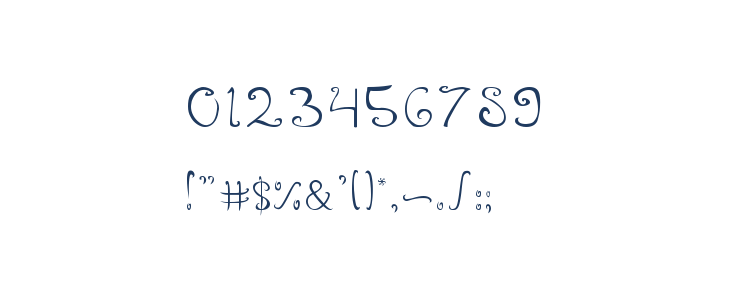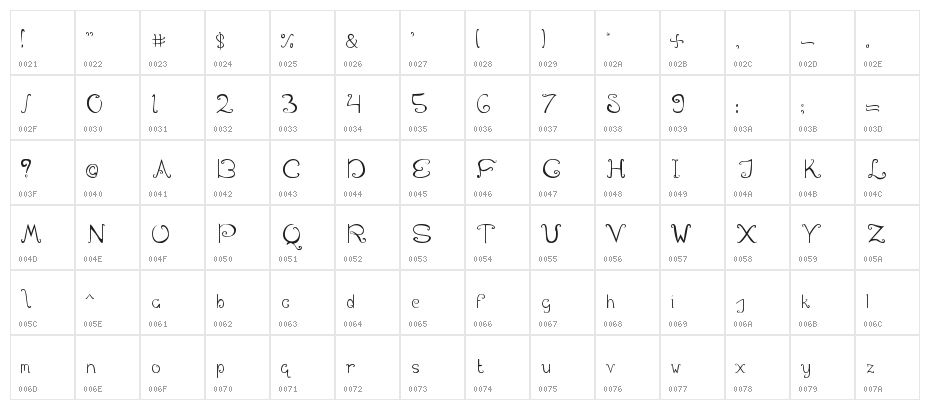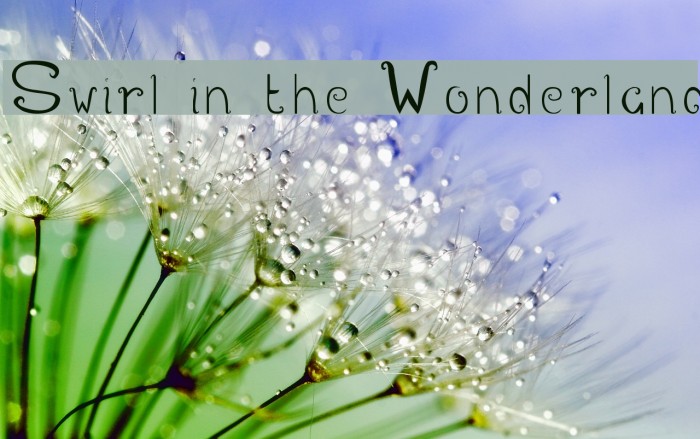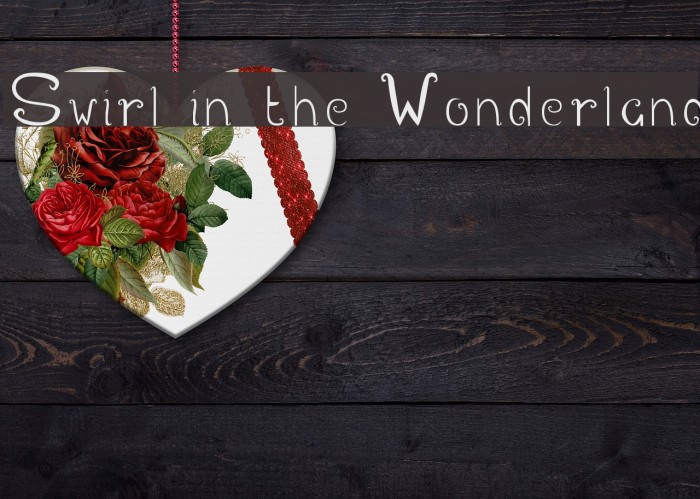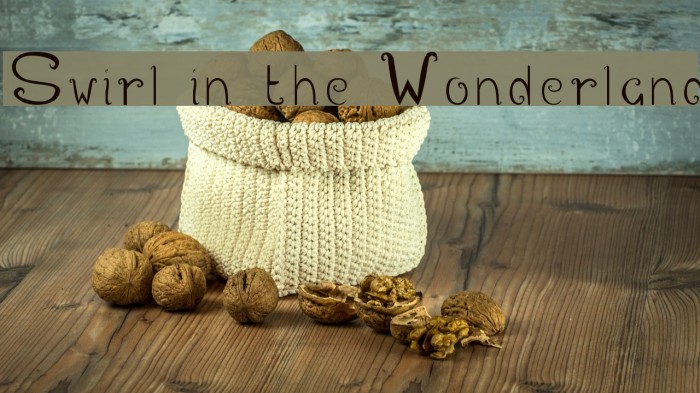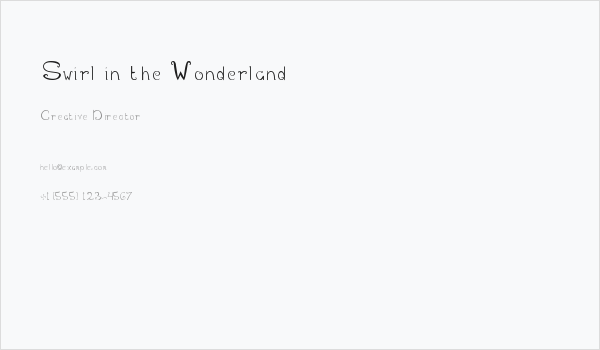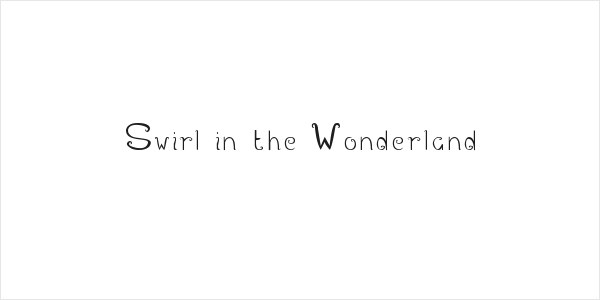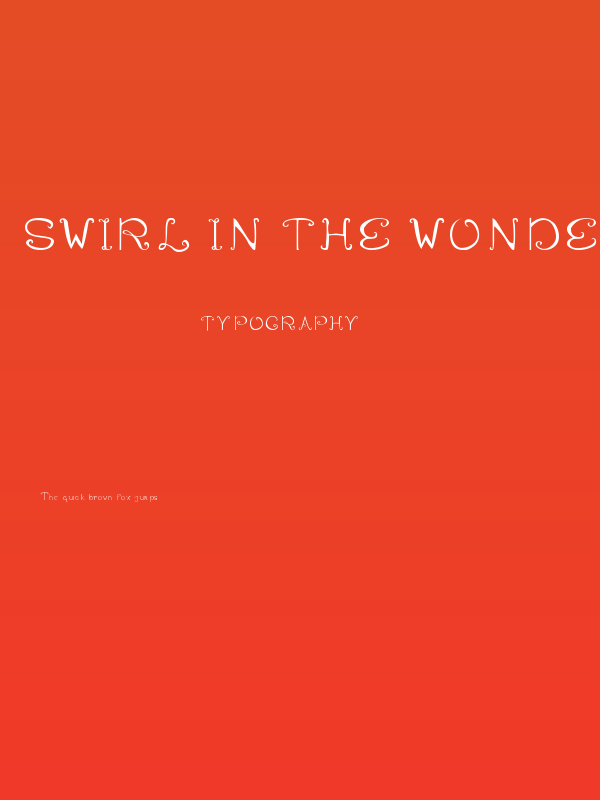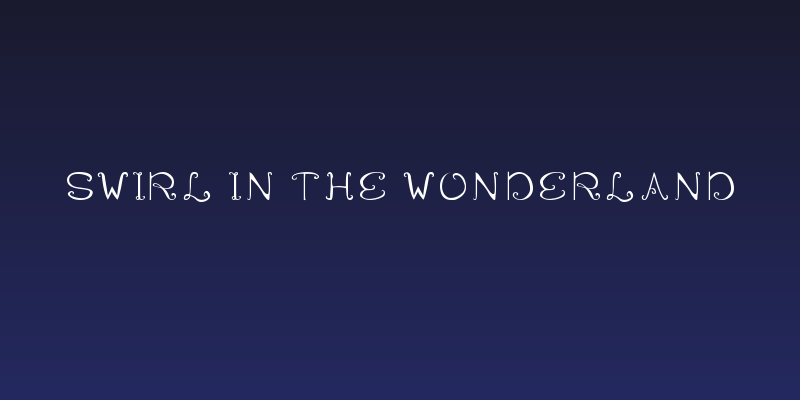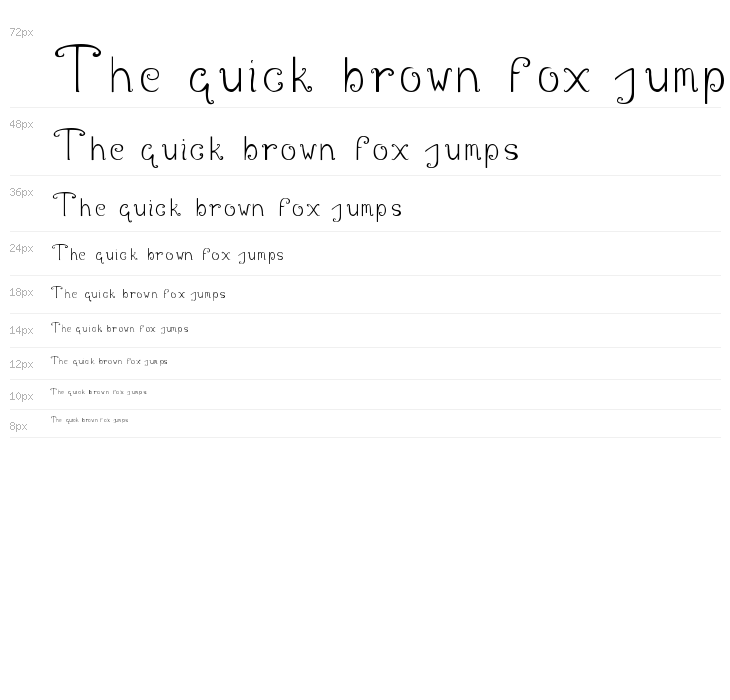
Swirl in the Wonderland Font
Swirl in the Wonderland Description
This whimsical font features playful, swirling elements that give it a fantastical and enchanting appearance. The uppercase letters are adorned with elegant curls and loops, creating a sense of movement and fluidity. The lowercase letters maintain this playful style, with unique twists and turns that add character to each glyph. Numbers and special characters are equally imaginative, incorporating the same swirling motifs. The overall design is both decorative and legible, making it suitable for creative and artistic projects.
| Overall Style | Whimsical, Fantastical, Playful |
| Proposed Projects | Ideal for fantasy-themed invitations, children's book covers, whimsical branding, and artistic posters. |